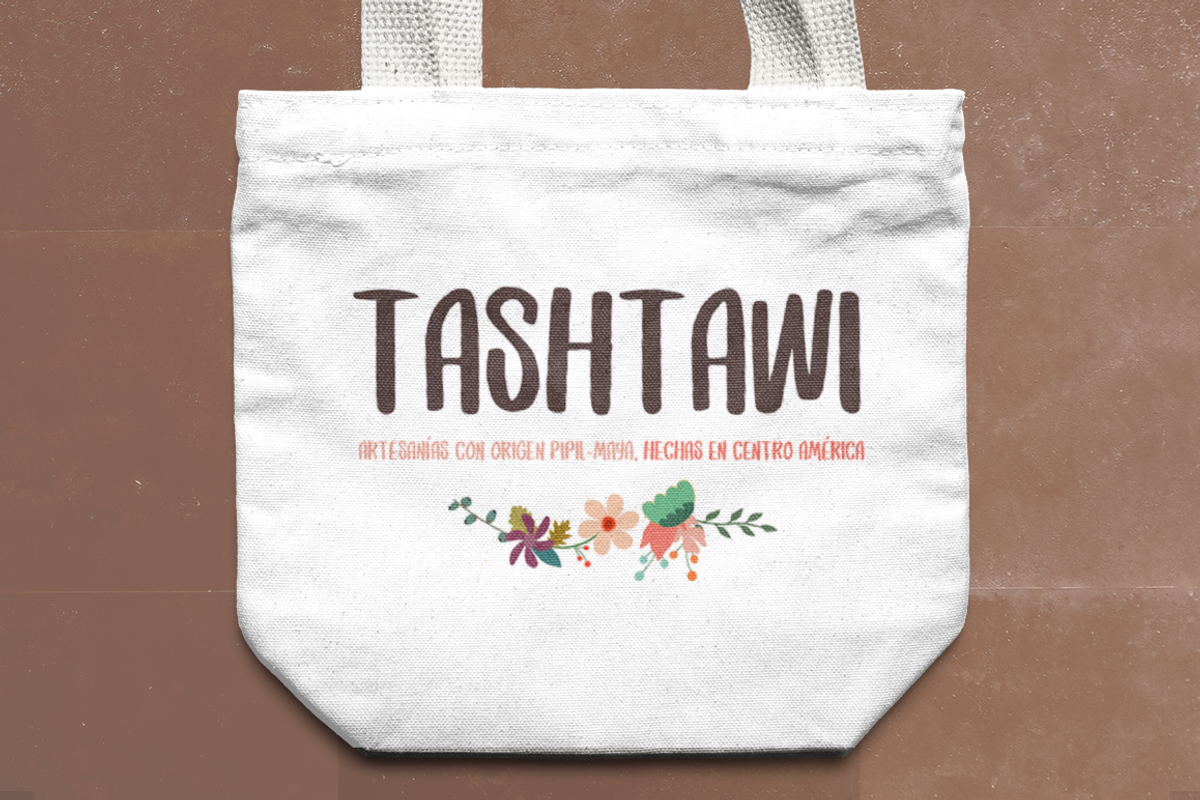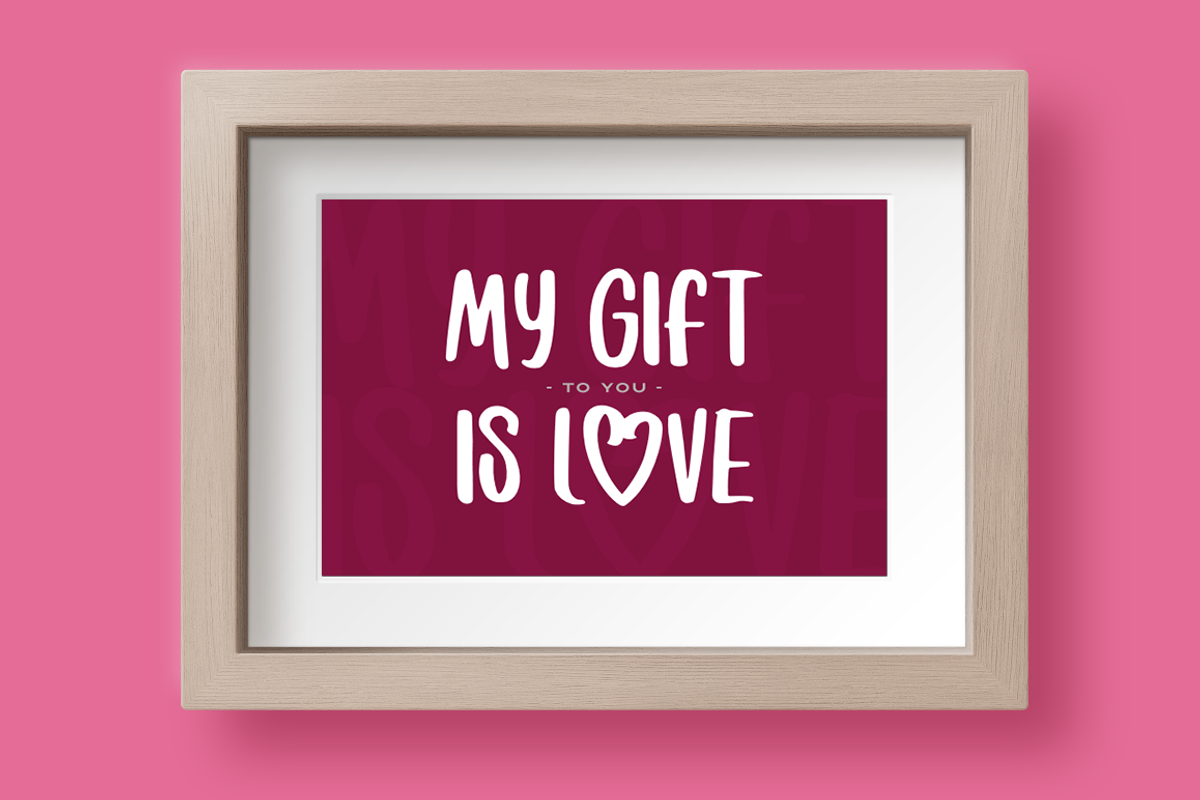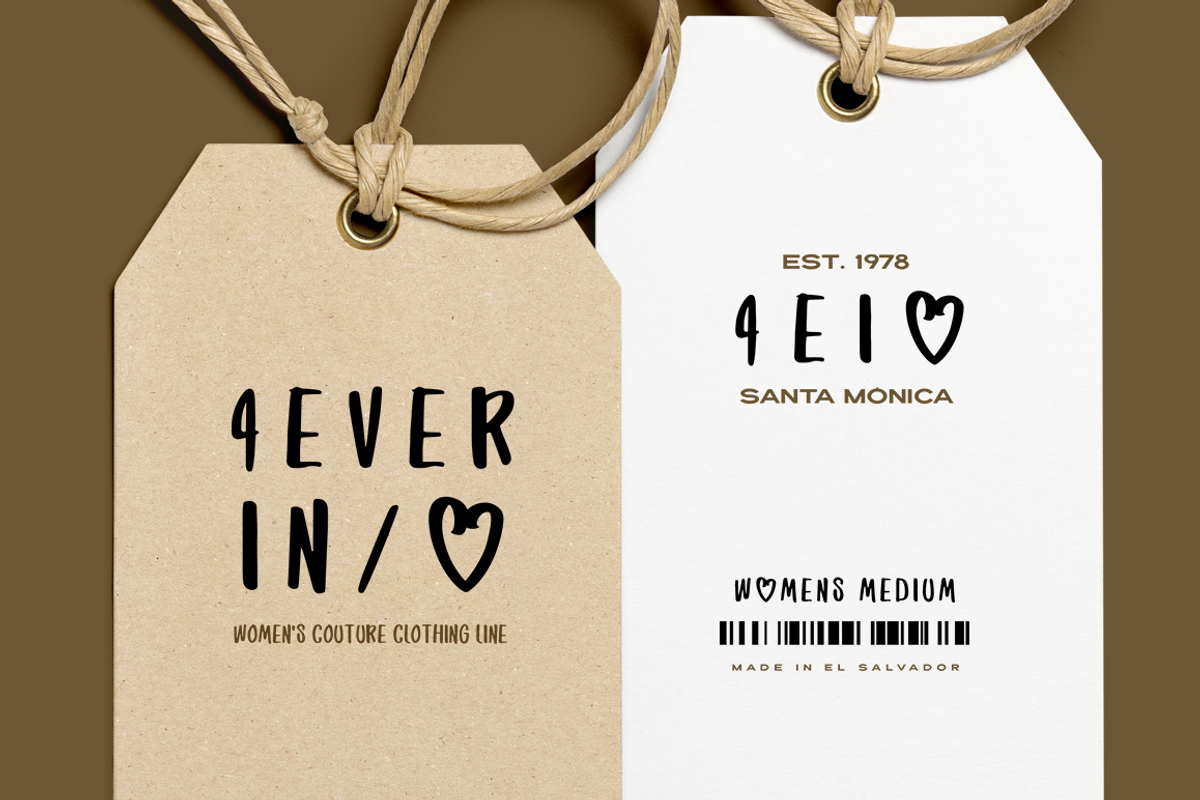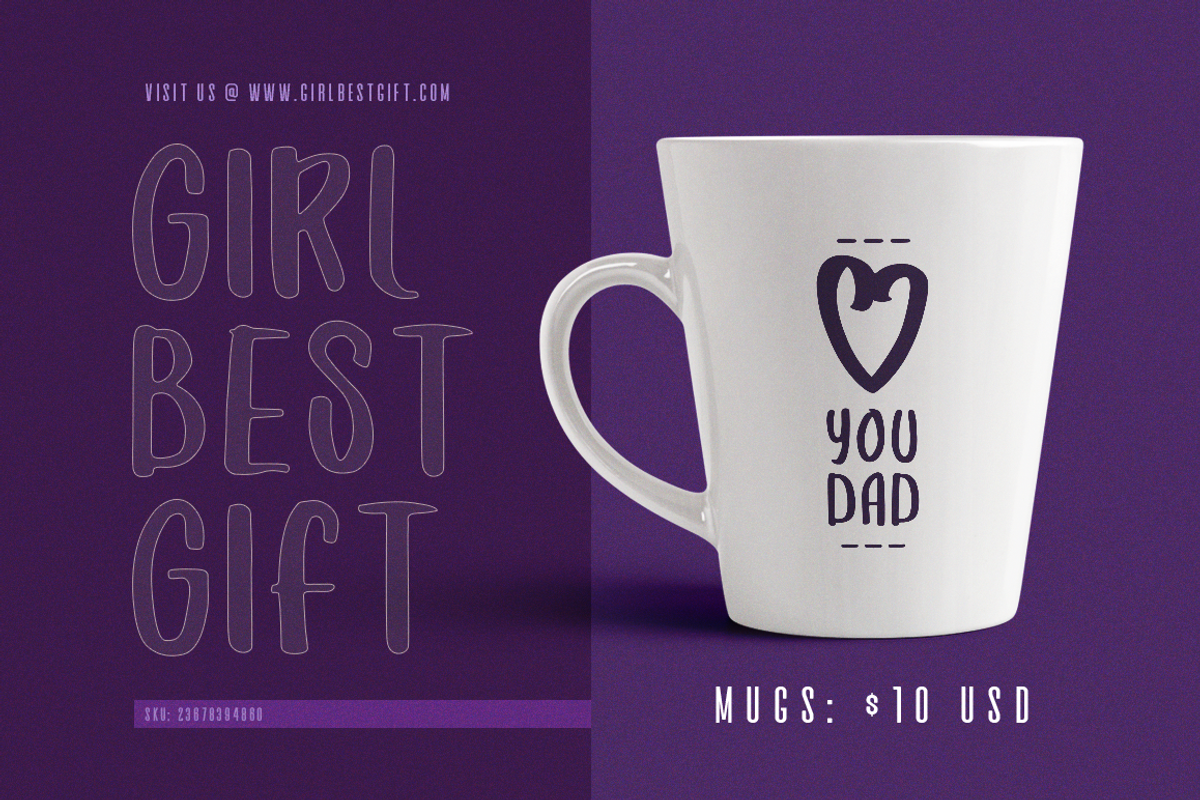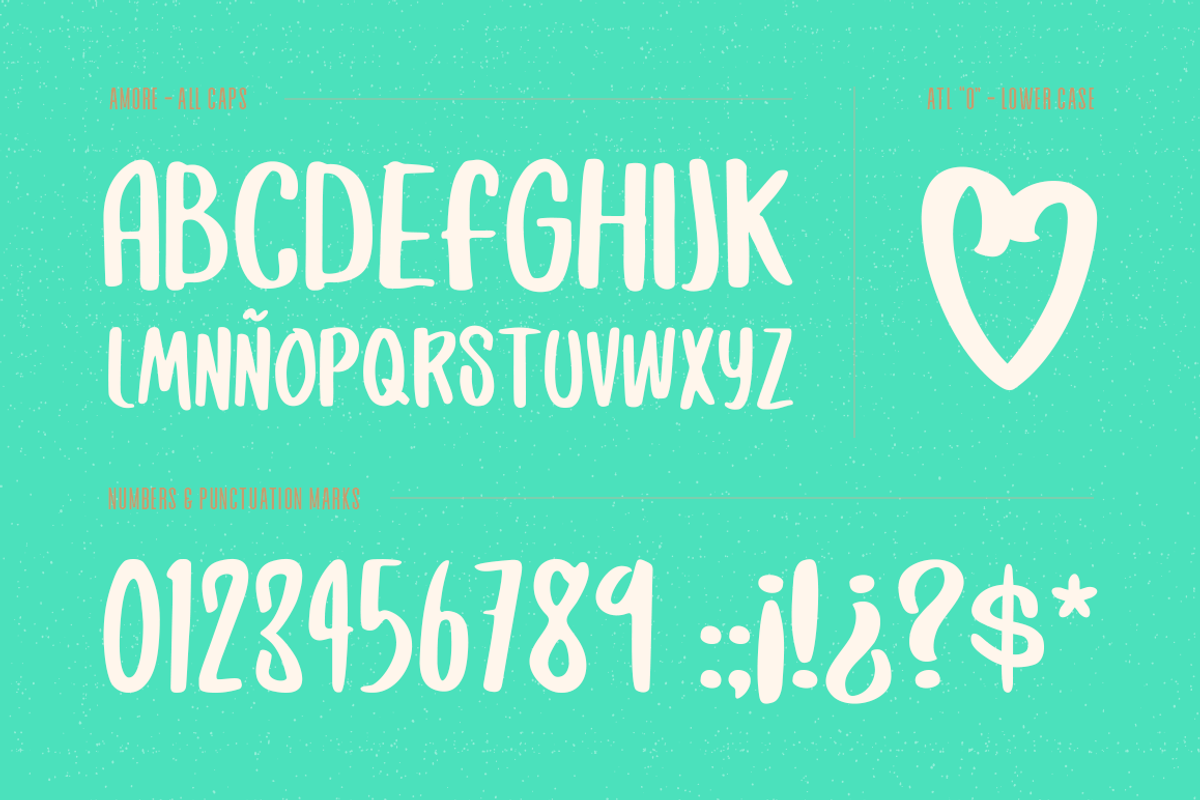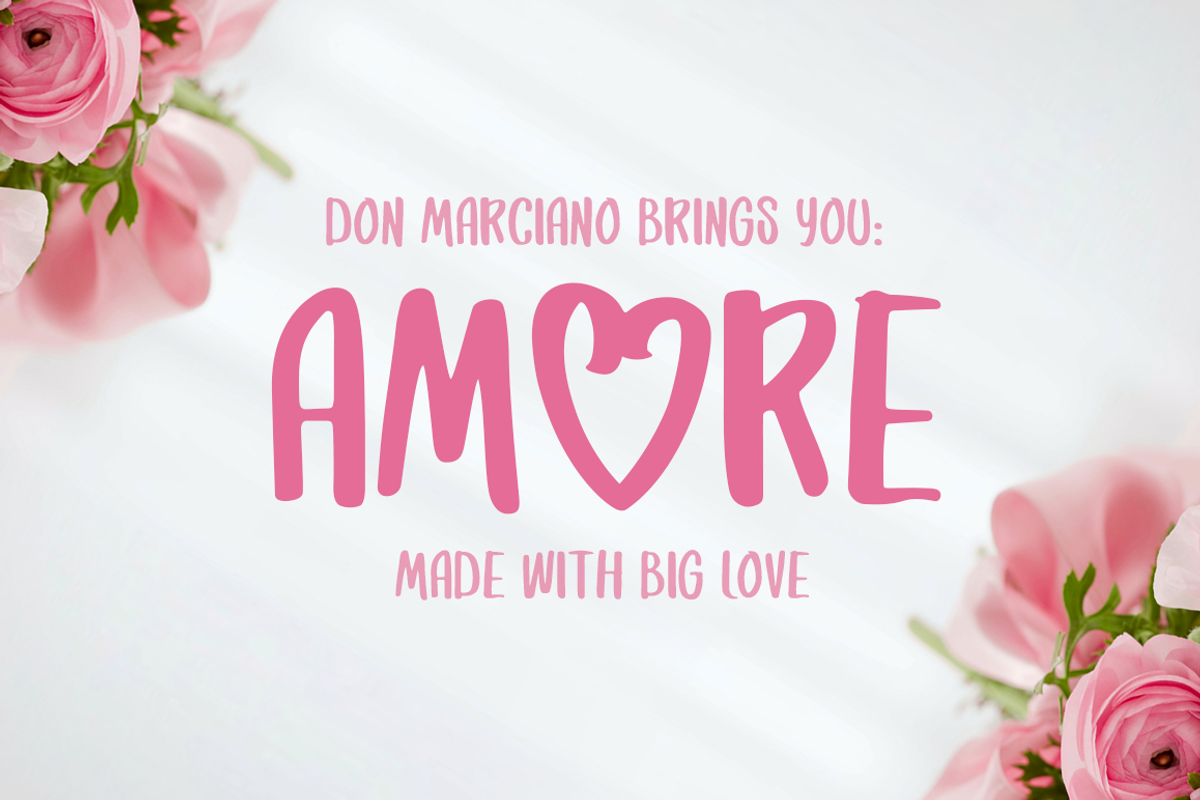
Amore Font - Strong & Lovable
Amore concept came to life as part of a series of fonts for women’s products project for a local business that needed clean and relatable designs, the result: handmade bold all caps style font that helps define the look of a strong, lovable, hard working women.